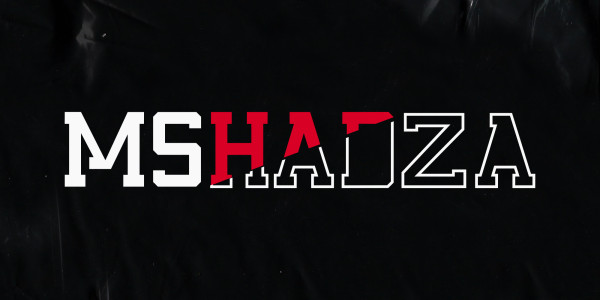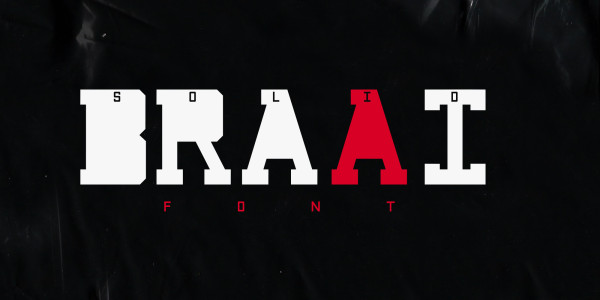
Phola Slab Font
Phola Slab Font, his modern slab serif typeface expands on the phola type family and complements it’s siblings with style.
Phola Slab Font is a geometric san-serif display type family. It consists of 64 fonts and includes an extensive character set and multilingual support. Crafted with love this font family offers a numerous styles (Regular, Solid, Square, Diablo, Oblique, Outline, Clean) the family allows for extensive use cases. This OpenType font offer a fantastic options for users to create some unique artwork.
Perfect for branding, Logos, displays, posters and other related projects.